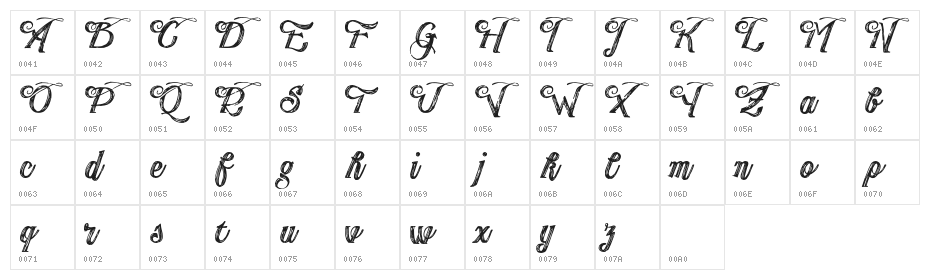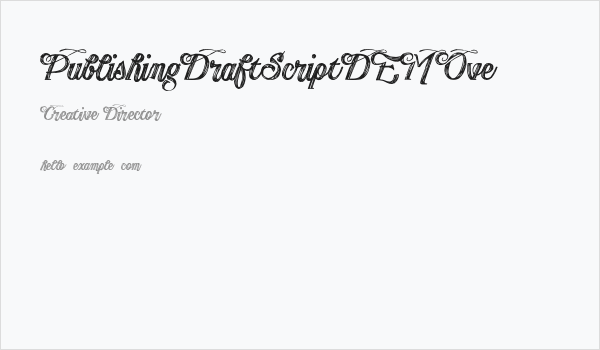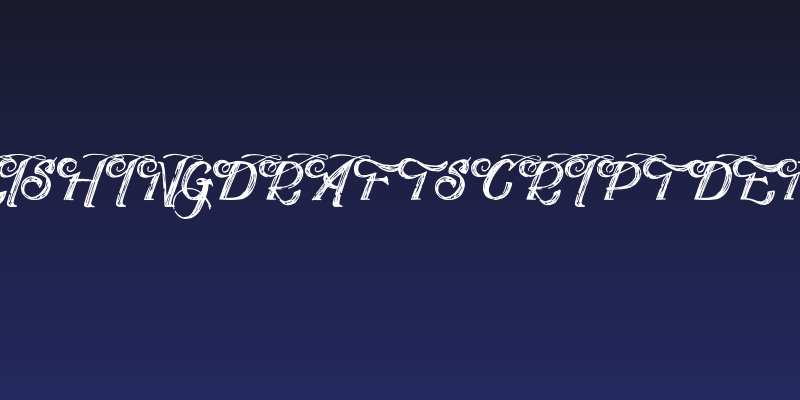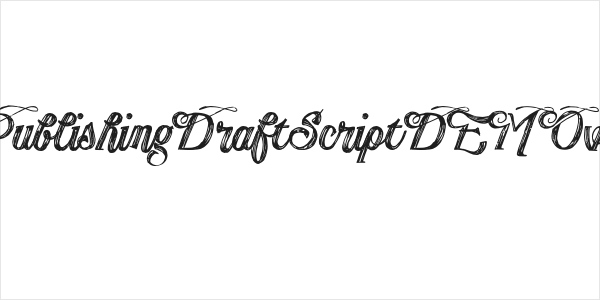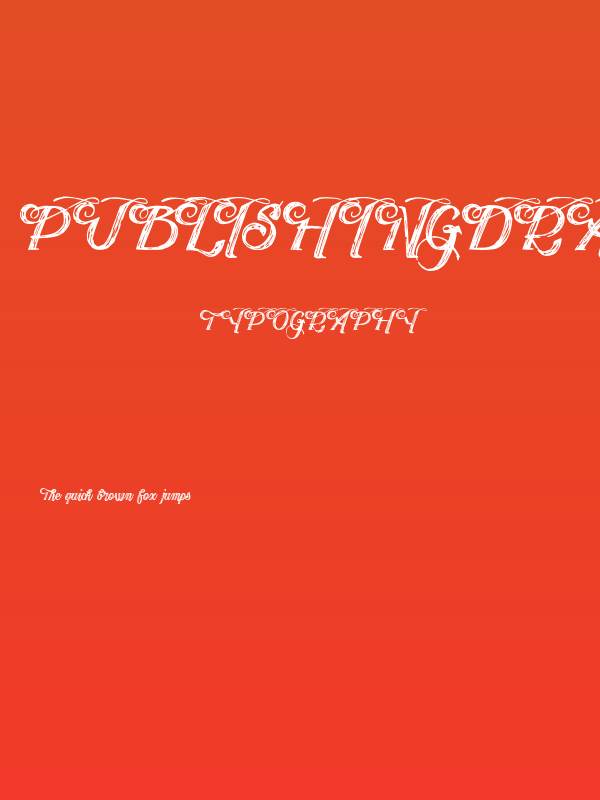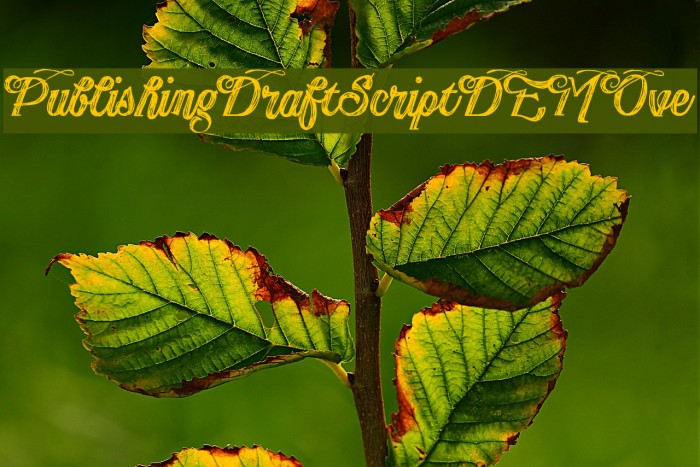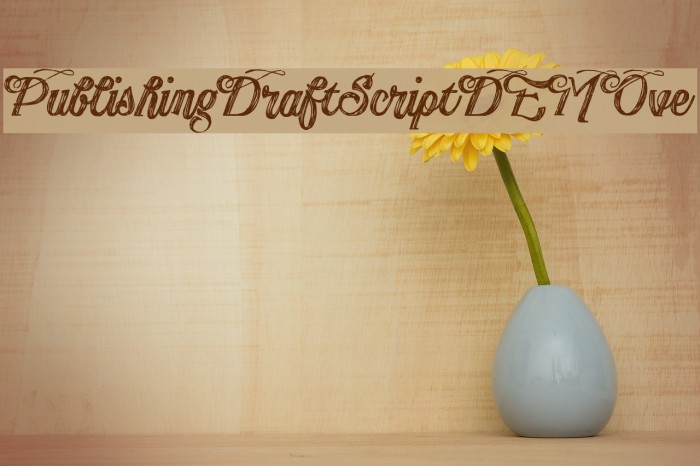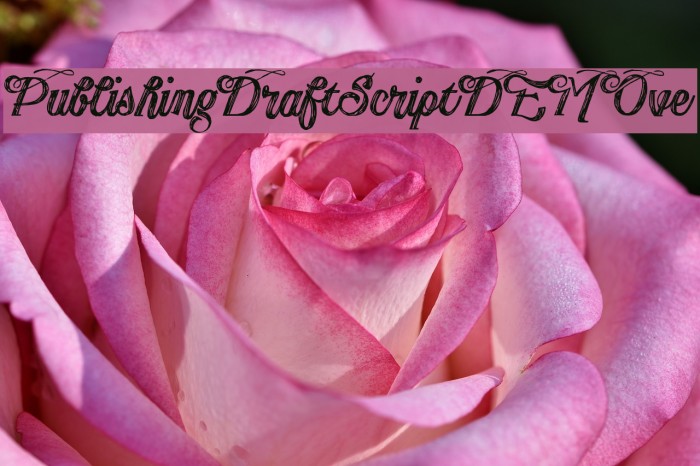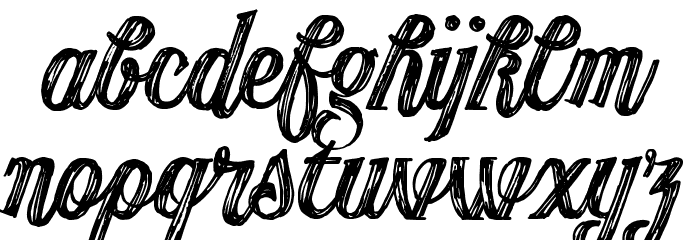
PublishingDraftScriptDEMOve Font
PublishingDraftScriptDEMOve Description
This font is a decorative script style characterized by its elegant and flowing letterforms. Each character is adorned with intricate swirls and flourishes, giving it a sophisticated and ornate appearance. The uppercase letters are particularly elaborate, with extended strokes and loops that create a sense of movement and grace. The lowercase letters maintain a consistent style, with a slightly more compact design that complements the uppercase set. The font's bold weight and high contrast between thick and thin strokes enhance its dramatic and eye-catching quality. This font is ideal for projects that require a touch of elegance and flair.
| Proposed Projects | Wedding invitations, luxury branding, event posters, and decorative signage. |